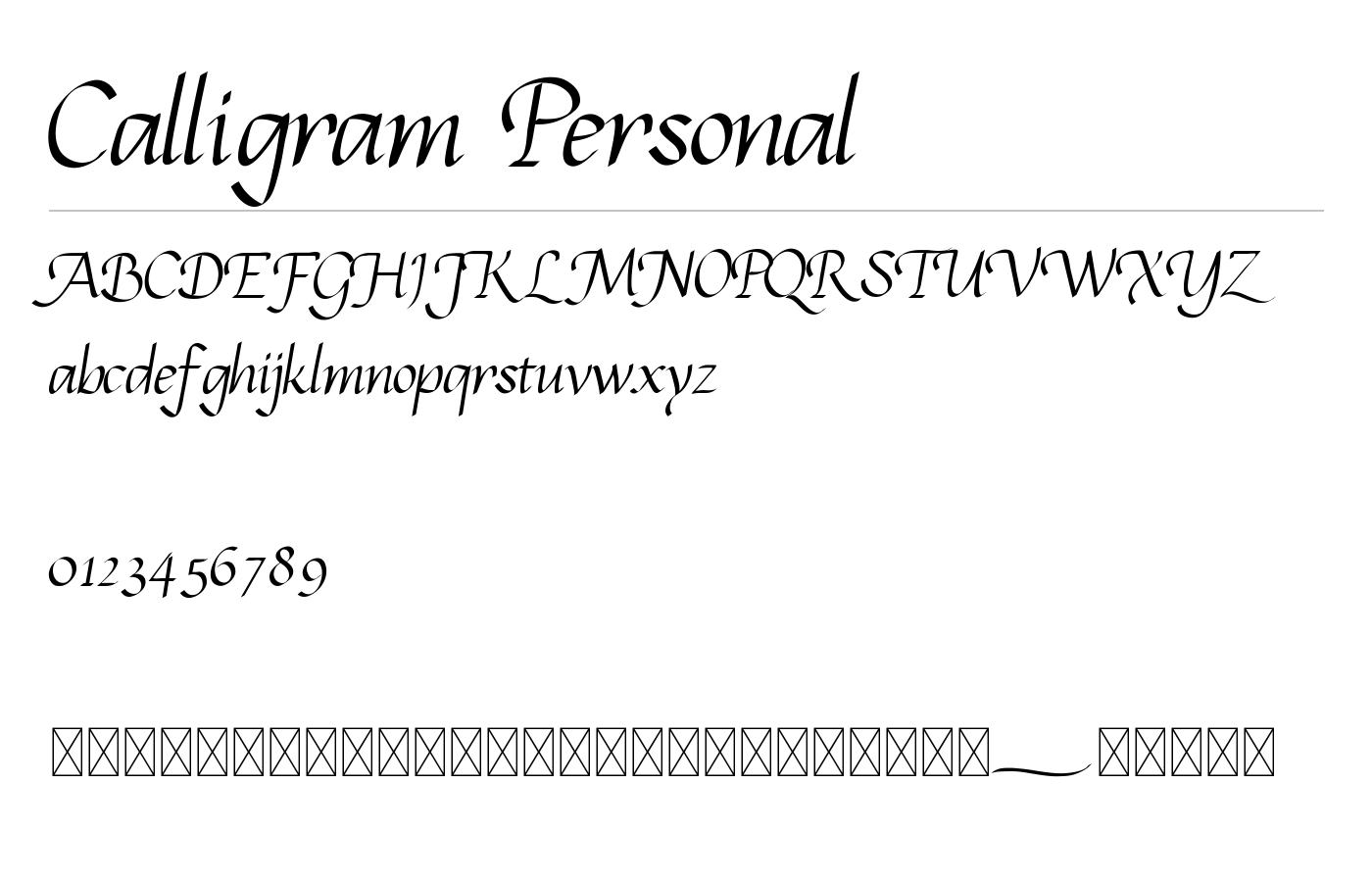
Calligram Personal is an elegant serif script font featuring graceful, flowing strokes that mimic refined calligraphy with a delicate contrast between thick and thin lines. Its slender, slightly condensed letterforms and classic styling make it perfect for sophisticated branding, invitations, and editorial designs where a personal, handwritten touch is desired. This font’s timeless and artistic personality lends well to projects that seek a blend of tradition and elegance.
Calligram Personal Font
About Calligram Personal Font
| Font family | Calligram Personal Font |
| Designer | Ikrar Bey Khubaib |